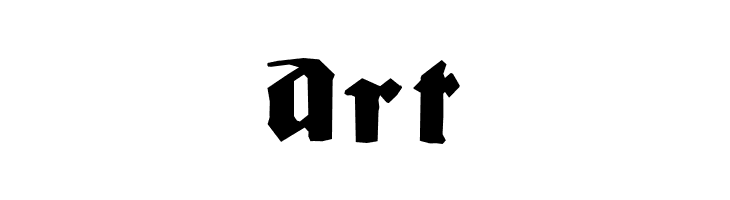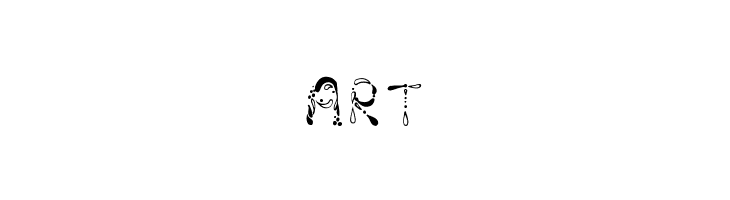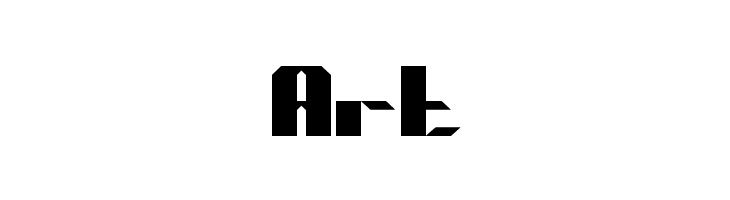
• LTReponseRoundedTwoItalic
A modern, rounded, and slightly italicized font with a smooth, flowing style.
• LubeSplash
A playful, liquid-inspired font with dynamic, dripping characters.
• LudwigHohlwein
A bold blackletter font with sharp, angular lines and a gothic style.
• LÚEUE
A modern, condensed font with geometric shapes and consistent stroke widths.
• Luis Augusto Durango
• Luke Osmond
A lively, handwritten script font with elegant curves and fluid connections.
• Lunar
A modern, geometric font with rounded edges and a futuristic style.
• Lunar
A modern, geometric font with rounded edges and a sleek design.
• Lunar Italic
A modern, italicized font with smooth, rounded characters and a dynamic style.
• MACHINE GUN
A bold, geometric font with sharp angles and a blocky, industrial design.